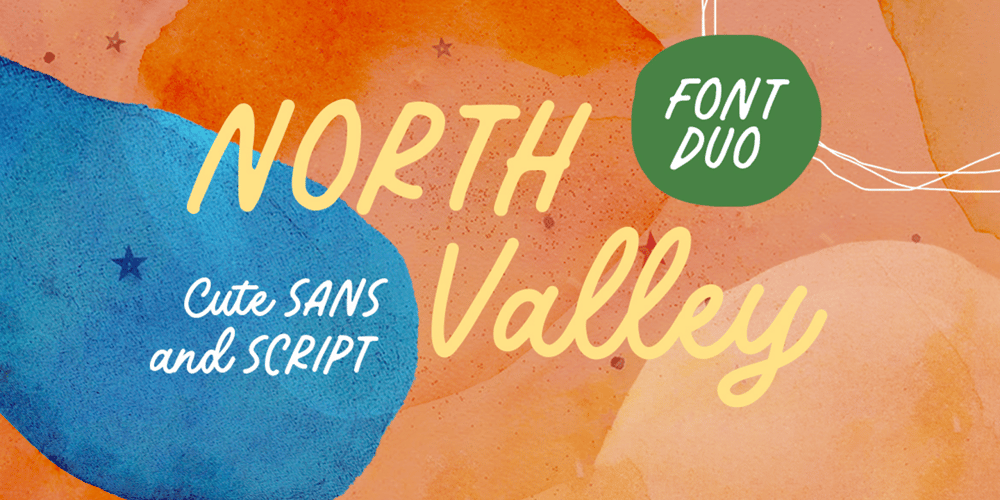
North Valley Font Family was designed by Hendry Juanda and published by Letterhend. North Valley contains 2 styles and family package options. Introducing, North Valley – A cute display font duo. This font has two styles, sans and script. Both fonts are paired perfectly to used for casual and playful theme design. This font also perfectly made to be applied especially in logo, and the other various formal forms such as invitations, labels, logos, magazines, books, greeting / wedding cards, packaging, fashion, make up, stationery, novels, labels or any type of advertising purpose.Features : Sans and Script uppercase and lowercase numbers and punctuation multilingual PUA encoded We highly recommend using a program that supports OpenType features and Glyphs panels like many of Adobe apps and Corel Draw, so you can see and access all Glyph variations.